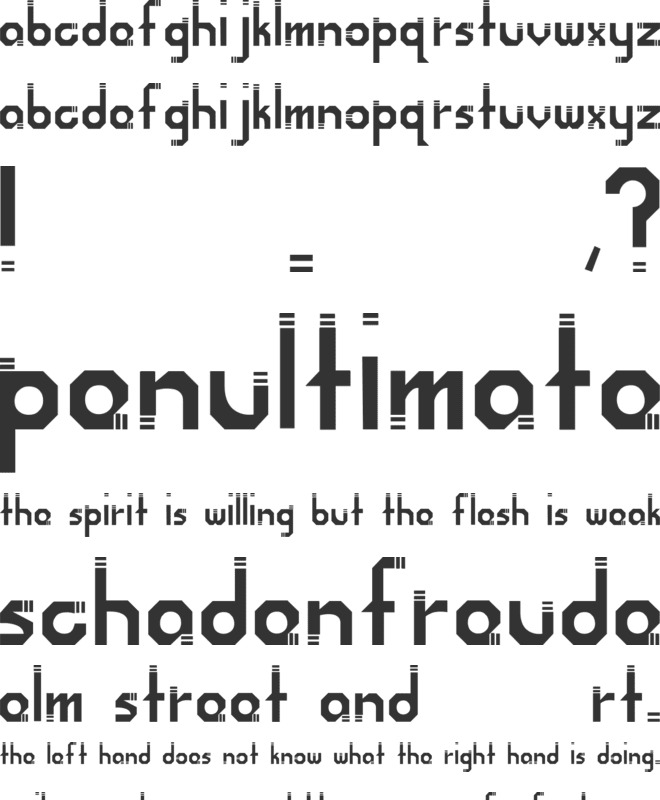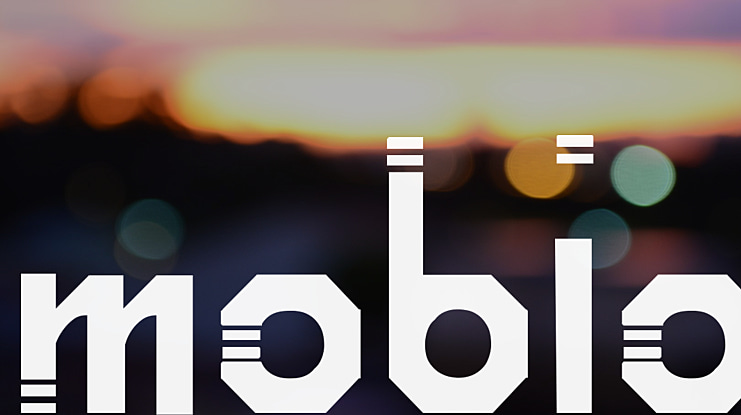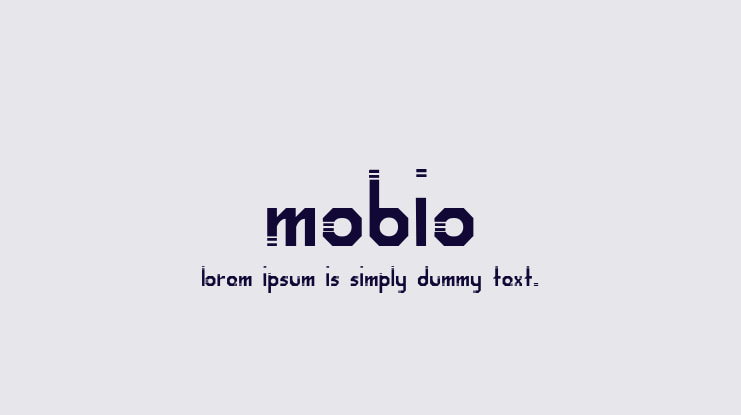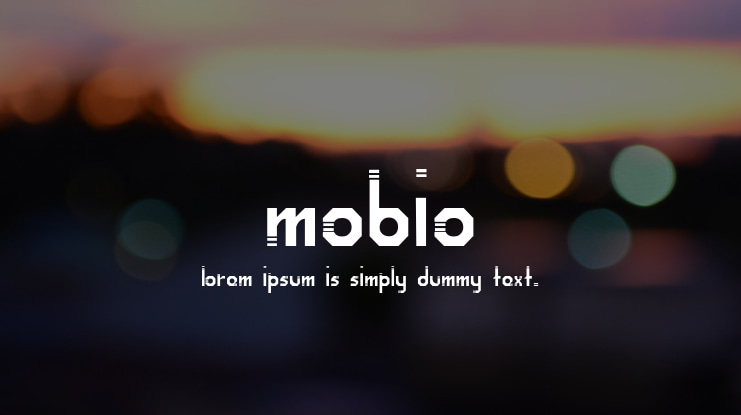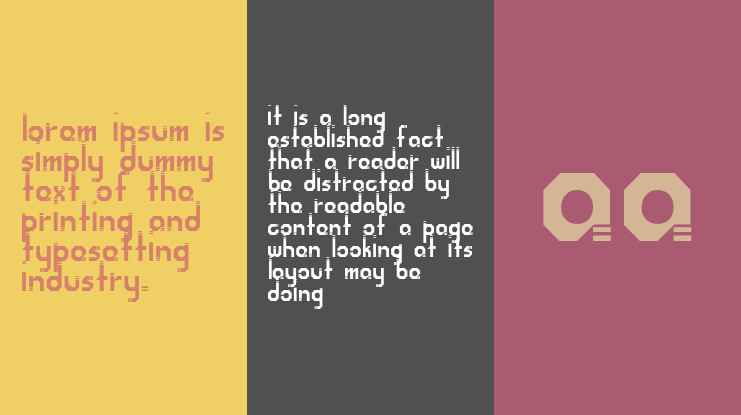
Mobio Font
The leading is horrible. Works best as a large size, probably as a title. Not good for body copy. Created for and inspired by Red Dot Award winner, Mobius Strip Lamp by Lee Kisung.